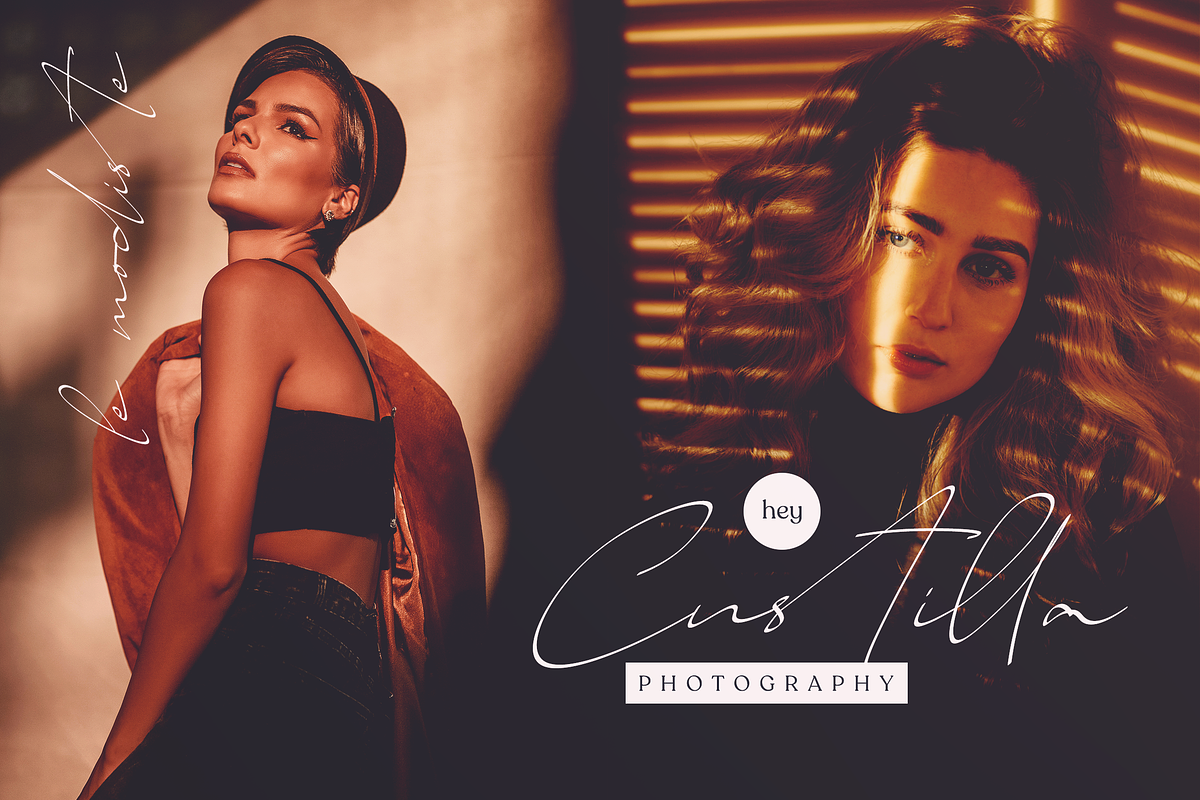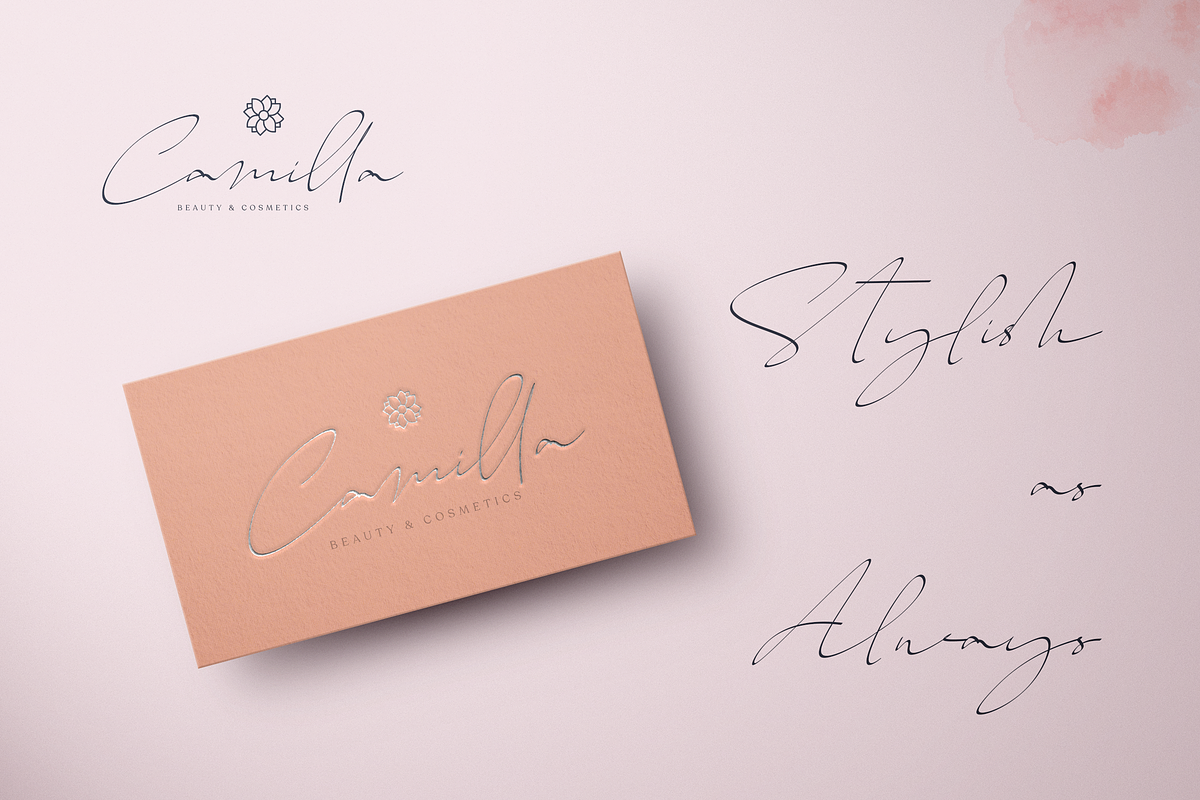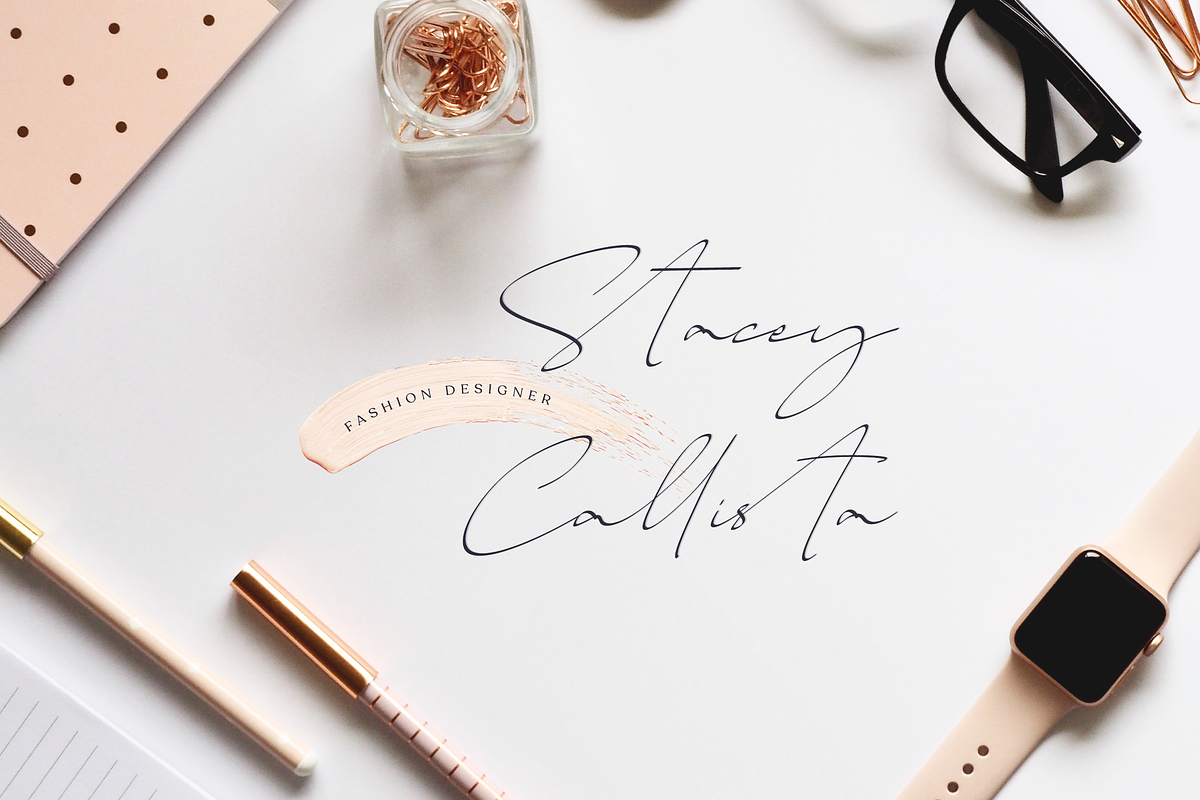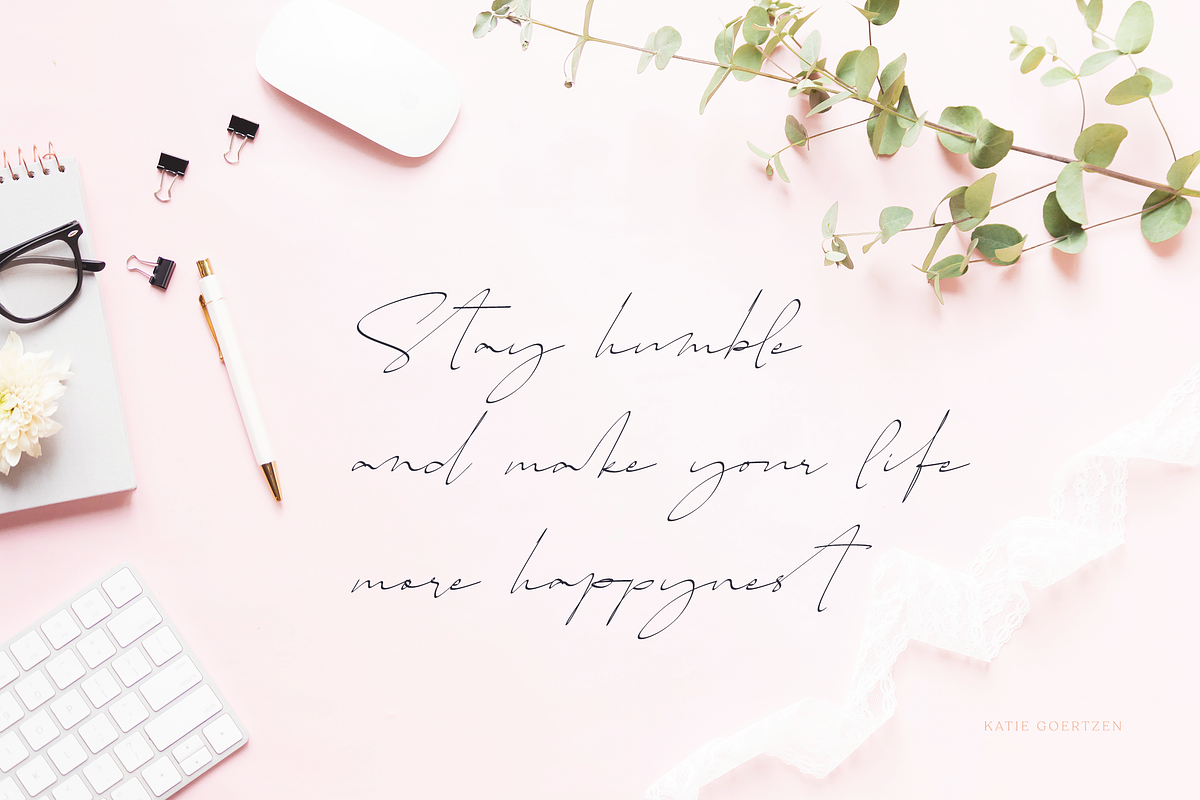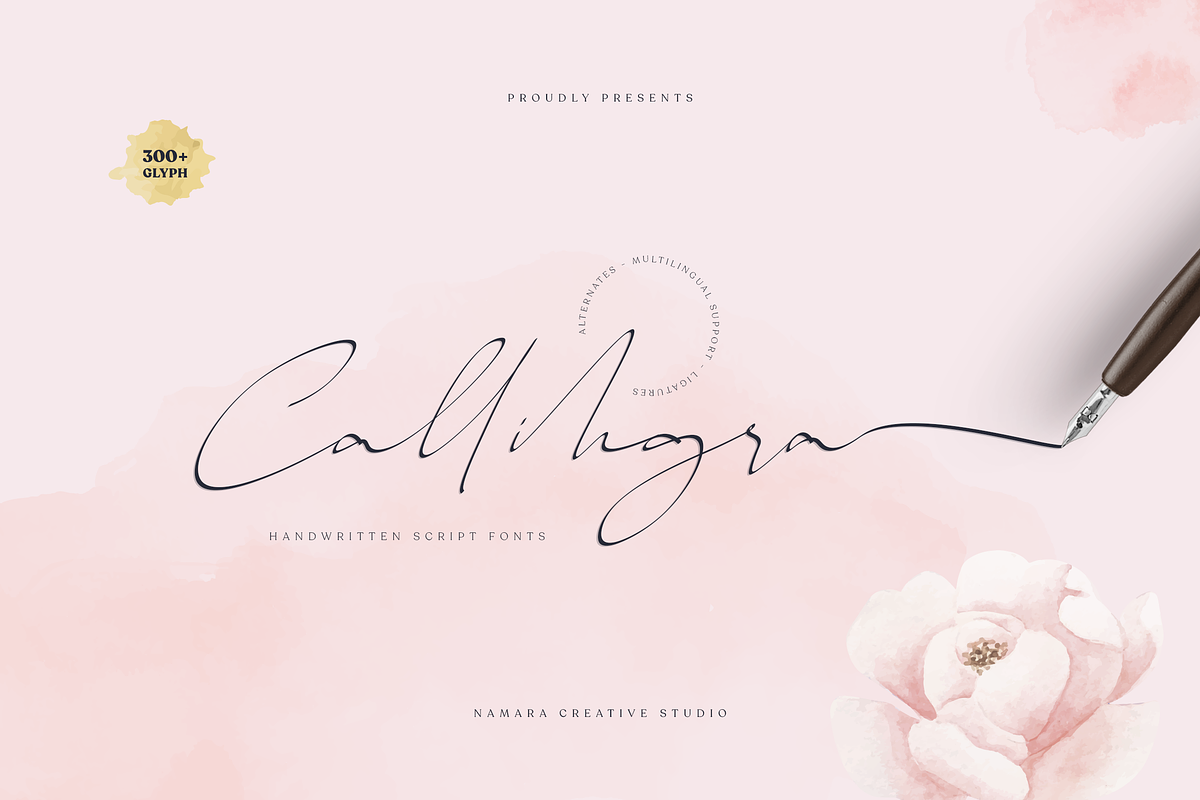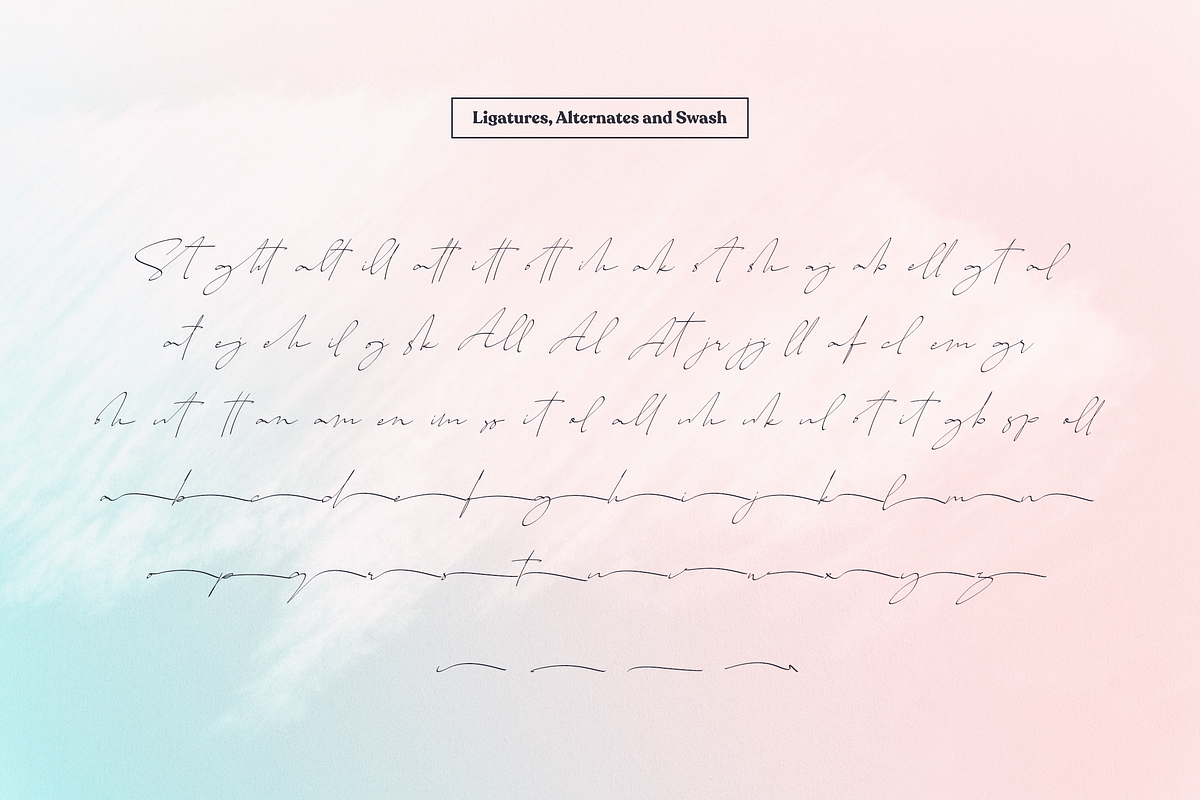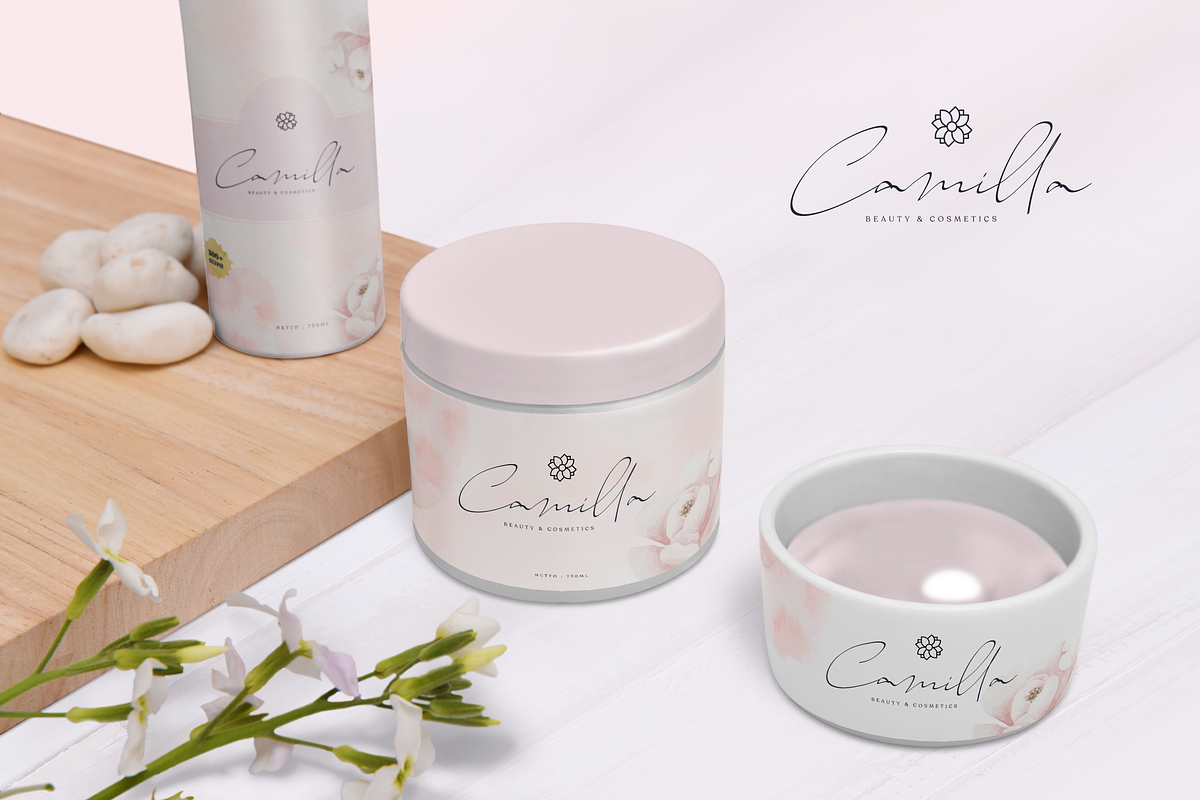
Callihgra
Callihgra is a natural handwritten font, Perfect for logos, invitations, stationery, wedding designs, social media posts, advertisements, product packaging, product designs, labels, photography watermark, special events or anything. Callihgra comes with full set of uppercase and lowercase letters, lowercase ending swashes, multilingual support, numerals, swashes and punctuations.